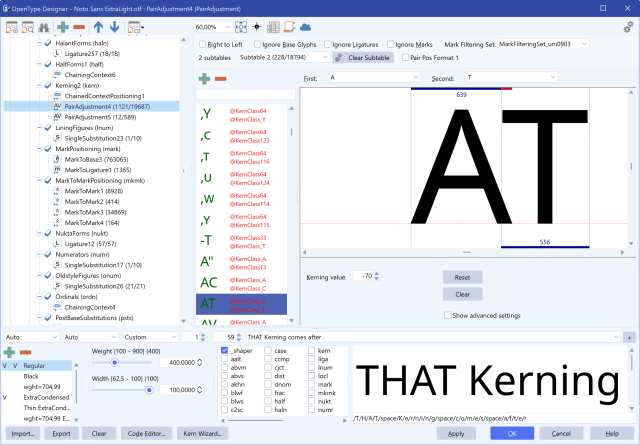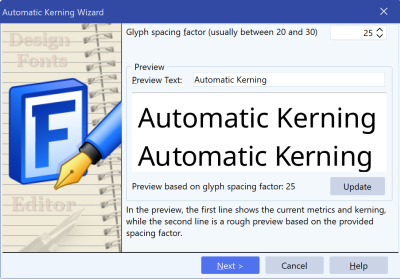
Kerning & Autokerning a Font in FontCreator
Kerning is the polish that makes a typeface look like a typeface. It's the small, pair-by-pair correction that closes the gap in "AV", tucks the "o" under the arm of a "T", and stops "Yo" from drifting apart. This tutorial shows how to add kerning by eye in FontCreator's font editor, how to scale it sanely with class kerning instead of building thousands of individual pairs, how to generate a first pass automatically with Auto Kern, and how to test and ship the result.
One thing first, because it saves more rework than anything else: kerning is the last step, not the first. If your side-bearings aren't even yet, fix the spacing before you touch a single pair — see Glyph Spacing and Optical Metrics. Kerning on top of good spacing is a short list of genuine exceptions; kerning on top of bad spacing is a font-wide patch job you'll have to redo the moment you fix the spacing underneath.
What kerning actually is (and isn't)
These two words get tangled constantly, so pin them down before opening any window.
• Spacing (side-bearings) is per-glyph. Every glyph carries a left and a right side-bearing — the air built into the letter itself, applied everywhere that letter appears.
• Kerning is per-pair. It's an adjustment to the distance between two specific glyphs that look wrong even when their spacing is correct. The classic offenders are diagonal-against-vertical and round-against-round combinations: "AV", "To", "Yo", "Wa", "P.", "r."
A kerning value is just a horizontal shift — a number, usually negative, that pulls the second glyph closer to the first (a positive value pushes them apart, which you'll need far less often). It lives in the font's OpenType layout data, not on the glyphs, and it only fires between the two glyphs you named.
> Note: Side-bearings and kerning are two separate mechanisms. Changing a side-bearing moves a letter everywhere; changing a kerning pair only changes one specific neighbour relationship. If a whole letter looks too tight against everything, that's a spacing problem — don't kern your way out of it.
Adjust pairs by eye in the OpenType Designer
FontCreator edits kerning in the OpenType Designer, the same window that manages all your OpenType layout features. Open it from Font → OpenType Designer…, or click the OpenType Designer button on the toolbar (its hint reads "OpenType designer: edit kerning and OpenType layout features").
Inside, kerning lives in a Kerning (kern) feature with a pair-positioning lookup. Each entry is a first glyph, a second glyph, and a Kerning value — the shift applied between them. You add a pair, type the two glyphs, set the value, and watch the preview close or open the gap.
FontCreator OpenType Designer showing a kerning pair and its kerning value input.
The OpenType Designer with the kerning lookup open, a pair selected, and the Kerning value field highlighted.
The honest way to find the right number is to look, not to guess. Build a test string that frames the pair you're tuning (more on strings below), nudge the value, and stop when the white space between the two letters matches the rhythm of the rest of the word. Negative values are the norm — most kerning pulls letters together. Reserve positive values for the rare combinations that genuinely sit too close, like a capital followed by a tall ascender.
> Tip: Kern the worst offenders first. A typeface only needs a few dozen carefully judged pairs to read well — the diagonals (A, V, W, Y, T), the round-to-round joins, and punctuation against tall letters. Chasing every theoretical pair is how you end up with a bloated, inconsistent kerning table.
Class kerning — avoid the pair explosion
Kerning every letter against every other letter individually does not scale. "A" kerns the same way before "V", "W" and "Y"; "T" behaves the same before "a", "c", "e", "o" and the rest of the round lowercase. If you build those as single pairs you'll author hundreds of near-identical values and have to fix each one by hand whenever you change a shape.
Class kerning (also called group kerning) solves this. You define a class — a group of glyphs that kern alike — and write one value between two classes instead of between every pair of members. Set "the diagonal capitals" against "the round lowercase" once, and every member combination inherits it.
In the OpenType Designer this is handled through the Class Manager (the Class Manager action / Edit Class entries on the kerning lookup). You build a left-side class and a right-side class, then enter a single kerning value for the class-against-class relationship; FontCreator stores it compactly and applies it to all the member pairs at once.
The payoff is twofold. Your kerning table stays small and fast (important for web fonts), and editing is sane — change the class value once and every pair it covers updates together. When one specific member is an exception, you can still override it with an individual pair on top of the class value.
Is Auto Kern's output final? Treat it as a strong first draft. It handles the bulk of regular pairs well; review the diagonals, round joins and punctuation by eye and correct anything that over- or under-shoots.
My pair value won't fix a problem that only happens sometimes — why? Because simple pair kerning is context-free. When a pair needs different treatment depending on what surrounds it, you need contextual (triplet) kerning instead.